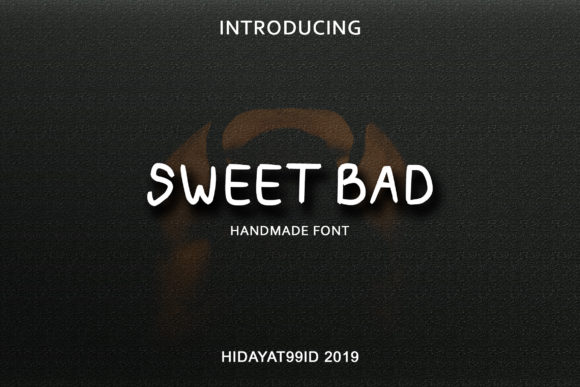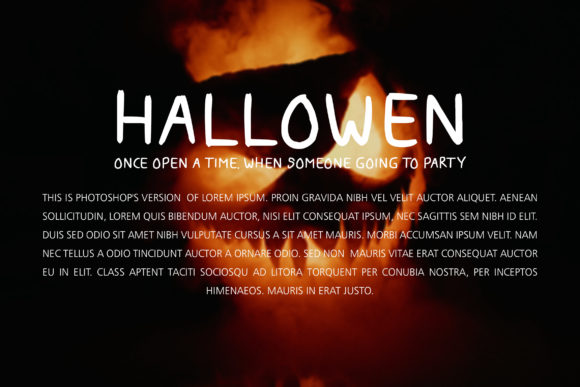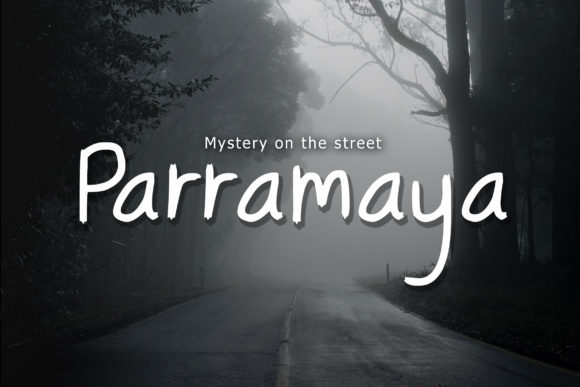
Sweet Bad Font
About Sweet Bad Font
Sweet Bad is a cute handwritten font with a twisted feel. It’s the perfect font for adding a whimsical touch to any creepy Halloween craft.